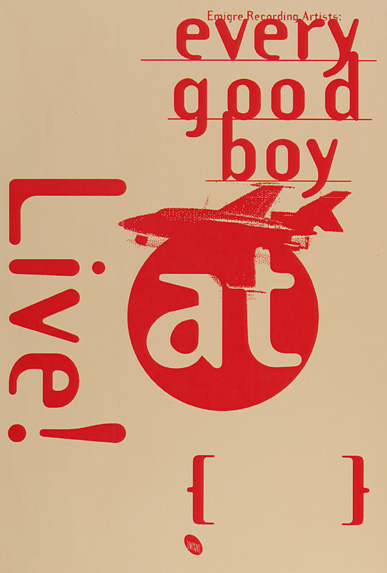
Template Gothic was ubiquitous by the end of the 1990s representing the aesthetic of imperfection beloved by certain designers during the postmodern era